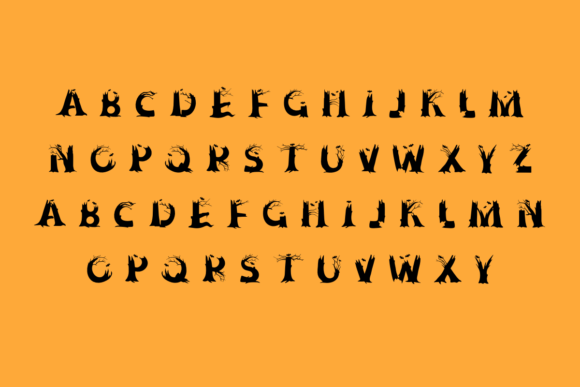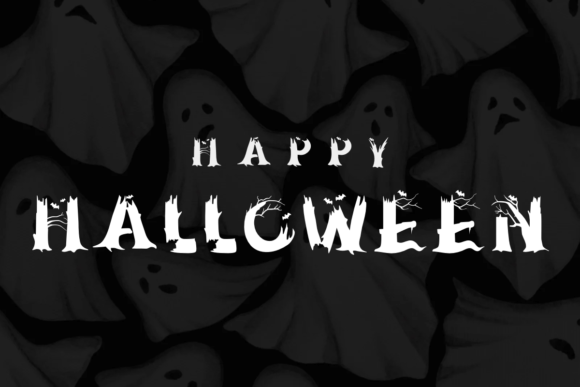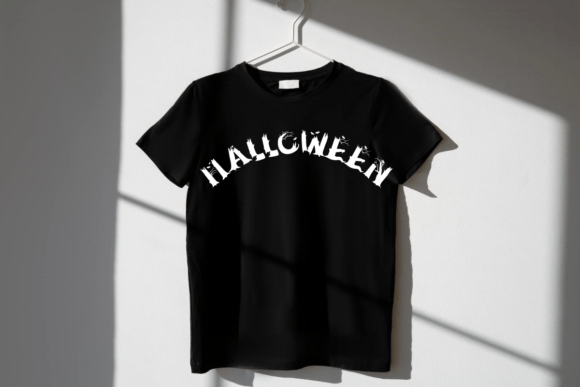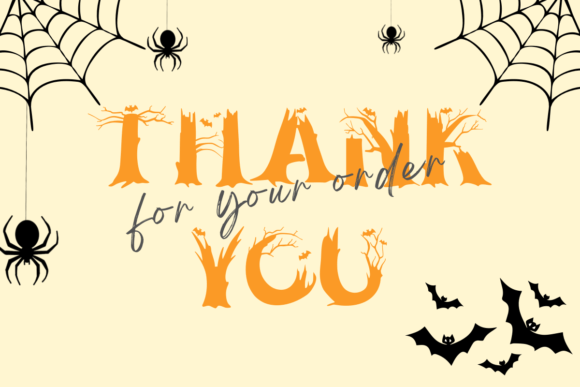
Cobwed Halloween Font: Add a Spooky Touch to Your Decorations
Are you looking for a unique and eerie font to add a spooky touch to your Halloween decorations? Look no further than the Cobwed Halloween Font! This fun and creepy font is perfect for designers and crafters who want to create eye-catching and haunting designs for the Halloween season.
What is Cobwed Halloween Font?
Cobwed Halloween is a fun and spooky font where each letter is made to look like creepy, twisted trees. Bats are adding an extra eerie touch, making it perfect for Halloween decorations. The font is designed to resemble twisted tree branches, complete with bats flying around them, creating a spooky and eerie atmosphere.
Features of Cobwed Halloween Font
- Unique Design: Each letter is carefully crafted to resemble twisted tree branches, complete with bats and other creepy details.
- Eerie and Spooky: The font is designed to create a spooky and eerie atmosphere, perfect for Halloween decorations.
- Perfect for Designers and Crafters: The font is ideal for designers and crafters who want to create eye-catching and haunting designs for Halloween.
Uses of Cobwed Halloween Font
Cobwed Halloween Font can be used in a variety of ways to add a spooky touch to your Halloween decorations. Here are a few ideas:
- Halloween Signs: Use the font to create spooky signs for your Halloween party or haunted house.
- Invitations: Create eye-catching invitations for your Halloween party using the Cobwed Halloween Font.
- Decorations: Use the font to create spooky decorations, such as banners, garlands, and other Halloween-themed decorations.
- Digital Designs: Use the font to create digital designs, such as social media graphics, blog posts, and other digital content.
Tips for Using Cobwed Halloween Font
Here are a few tips for using Cobwed Halloween Font:
- Use it Sparingly: Use the font sparingly to create a bigger impact. You can use it for headings or titles, and a more traditional font for the body text.
- Experiment with Colors: Experiment with different colors to create a unique and eye-catching design. You can use orange, black, and purple to create a spooky and eerie atmosphere.
- Combine with Other Fonts: Combine Cobwed Halloween Font with other fonts to create a unique and interesting design.
Cobwed Halloween Font is a unique and eerie font that is perfect for designers and crafters who want to add a spooky touch to their Halloween decorations. With its twisted tree branches and bats, it’s sure to create a spooky and eerie atmosphere. Whether you’re creating signs, invitations, decorations, or digital designs, Cobwed Halloween Font is a great choice. So why not give it a try and see what kind of spooky and eye-catching designs you can create?